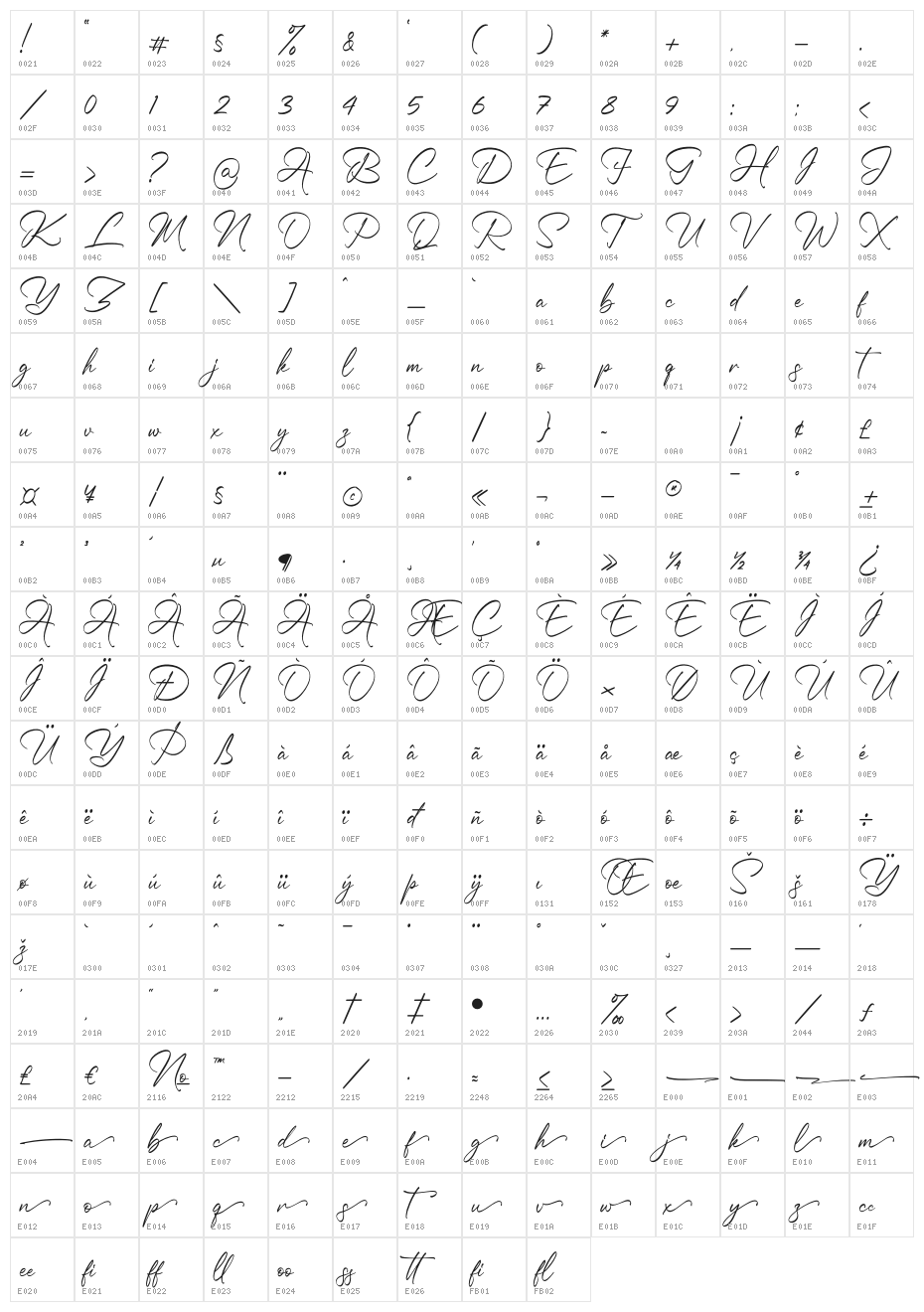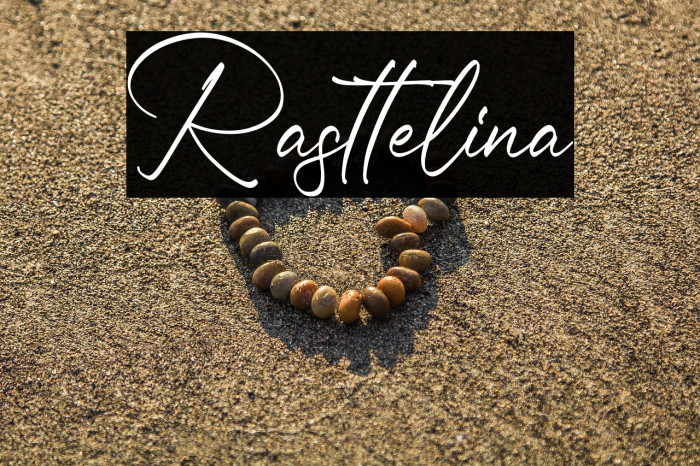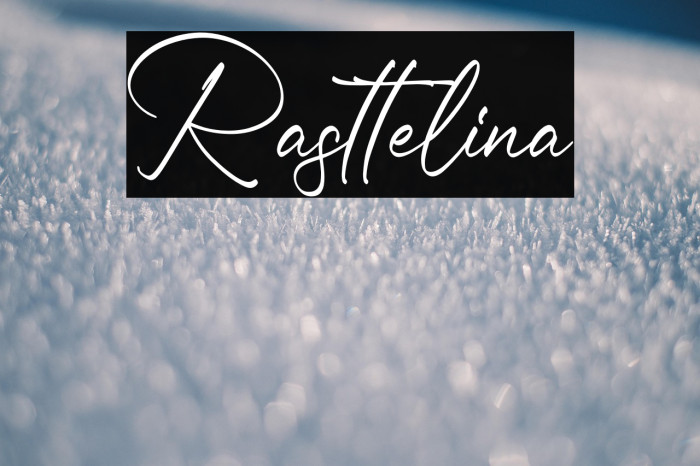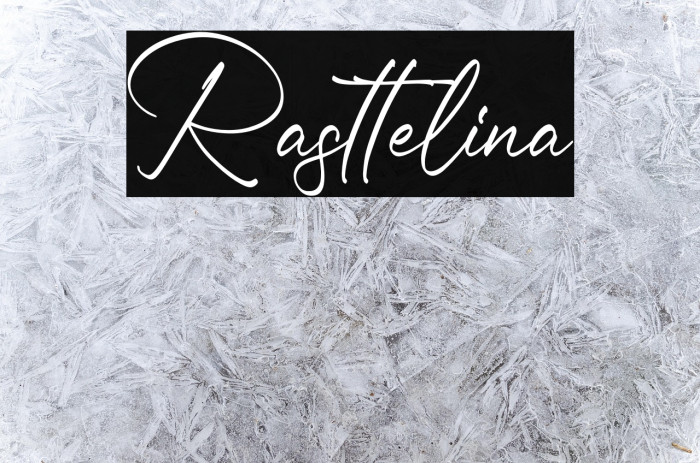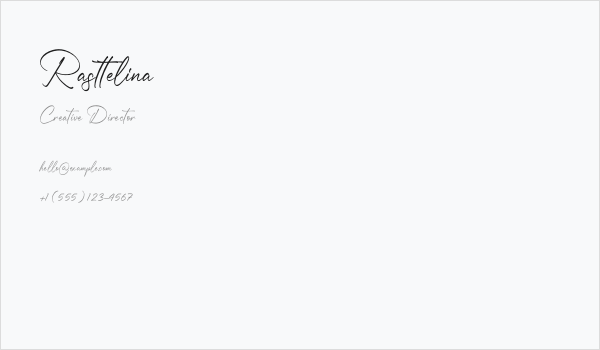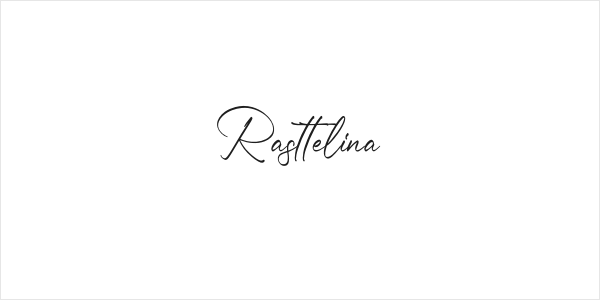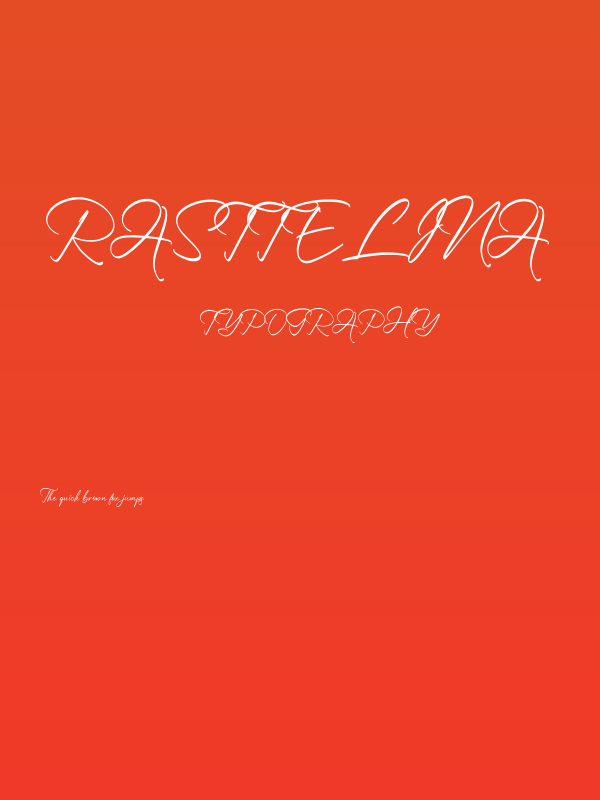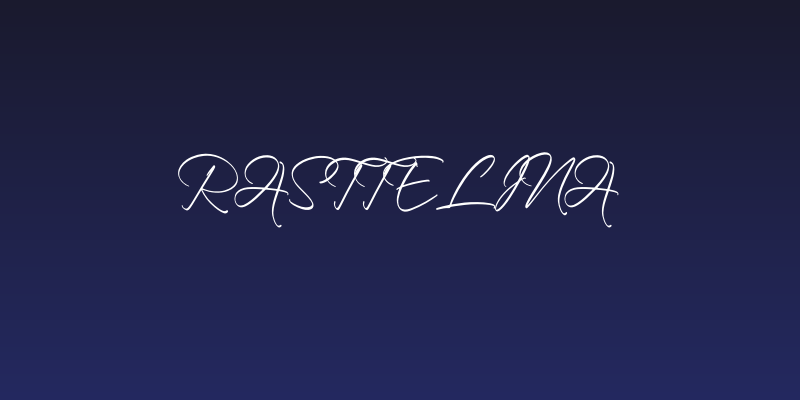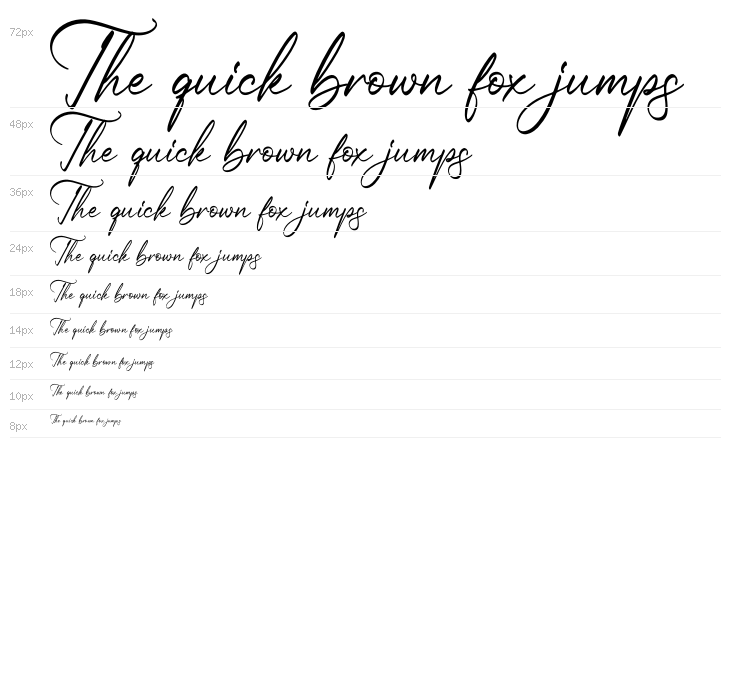
Rasttelina Font
Rasttelina Description
A flowing, elegant script font with a handwritten style, featuring smooth curves and connected letters.
| Use Case | Logos, Invitations |
| Proposed Projects | Invitations, greeting cards, branding. |